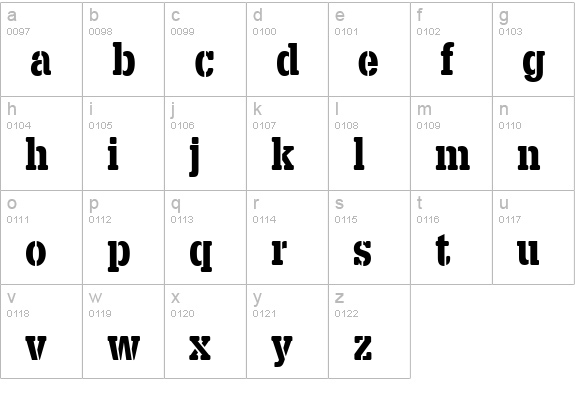
Introducing X.Template font, a versatile and modern typeface that is sure to elevate any design project. With its clean lines and contemporary aesthetic, X.Template is perfect for a wide range of applications, from branding and advertising to web design and print materials. This font offers a unique balance of elegance and simplicity, making it suitable for both professional and creative endeavors. Its carefully crafted letterforms create a harmonious flow, ensuring legibility and visual impact in any size or format. What sets X.Template apart is not just its exceptional design, but also its accessibility. This font is freely available to download at FontsMarket.com, allowing designers and creatives of all levels to enjoy its benefits without any cost. Whether you're a seasoned professional or a budding artist, X.Template is here to enhance your work with its timeless appeal. Featuring a wide range of weights and styles, X.Template provides endless possibilities for customization and experimentation. Its extensive character set includes both uppercase and lowercase letters, numerals, punctuation marks, and a selection of special characters, ensuring versatility and flexibility for any design project. With its seamless integration into various design software and applications, X.Template allows you to effortlessly bring your creative visions to life. Its high-quality vector files ensure crisp and sharp rendering, whether you're working on a digital project or preparing materials for print. Discover the power and beauty of X.Template font today. Download it for free at FontsMarket.com and unlock a world of design possibilities. Elevate your creations with this exceptional typeface and unleash your creativity like never before.